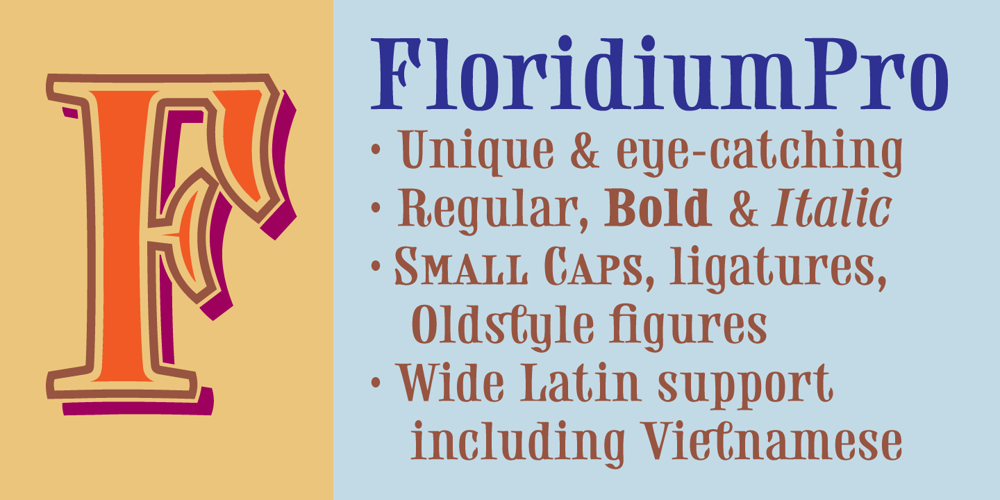
Floridium Pro LV
Floridium Pro LV font
Floridium Pro LV Font Family was designed by George E. Thompson and published by No Bodoni. Floridium Pro LV contains 3 styles and family package options. Floridium grew out of an affection for the old wood types of the 1800s. Painters Roman* was the initial inspiration. It was the source for the �banana� and �snake head� serifs. But the design�released by Adobe as Juniper�was too quirky to be useful. I tried to make it more sophisticated and modern while keeping the original personality of the 19th century types. The name resulted from a trip to Miami while the initial drawings were being made. Not the best way to name a typeface, but while we were in Miami Beach there was this tall blonde in a bright yellow bikini sitting on this bright yellow Porsche and…